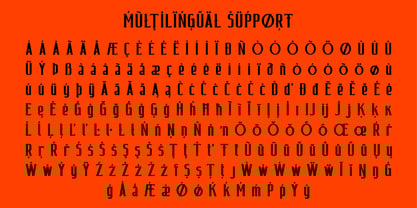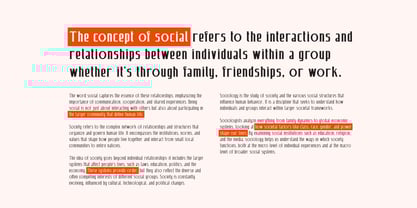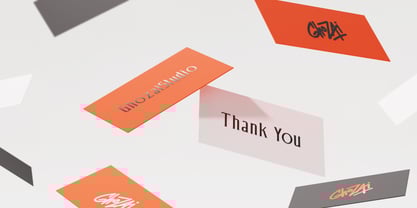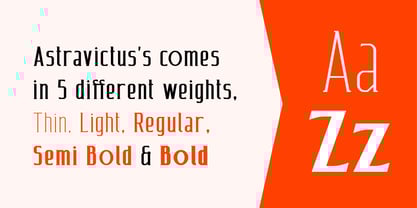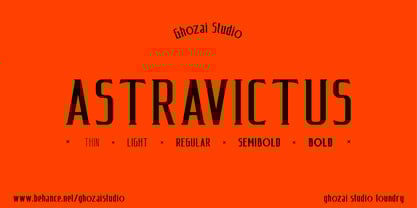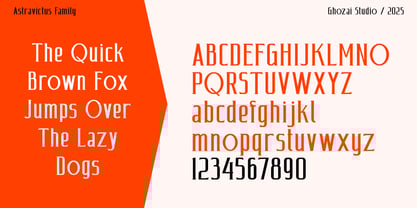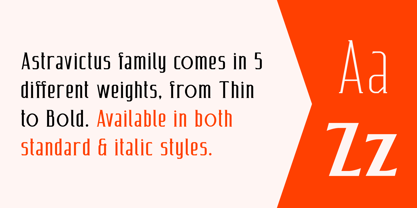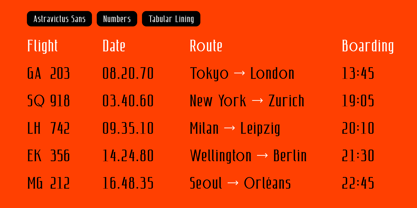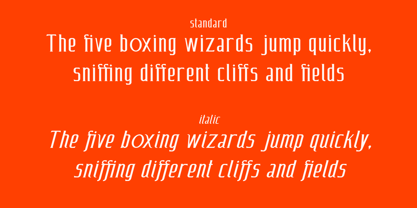
Astravictus
by Ghozai Studio
The Astravictus Font Family was designed by Manzur Ghozaali and published by Ghozai Studio. Astravictus contains 10 styles and family package options. More about this family
Astravictus is a font family that features 5 weights, ranging from Thin to Bold. With a wide variety of weights, OpenType features, and multilingual glyph support, Astravictus ensures versatility across different languages and design needs. Its sleek, modern design makes it ideal for a variety of applications, including display, branding, signage, and more. Whether creating impactful headlines, distinctive logos, or clear signage, Astravictus delivers both style and functionality. Its flexibility allows it to adapt to different design styles, making it the perfect choice for any project that requires a bold and contemporary touch.
Designers: Manzur Ghozaali
Foundry: Ghozai Studio